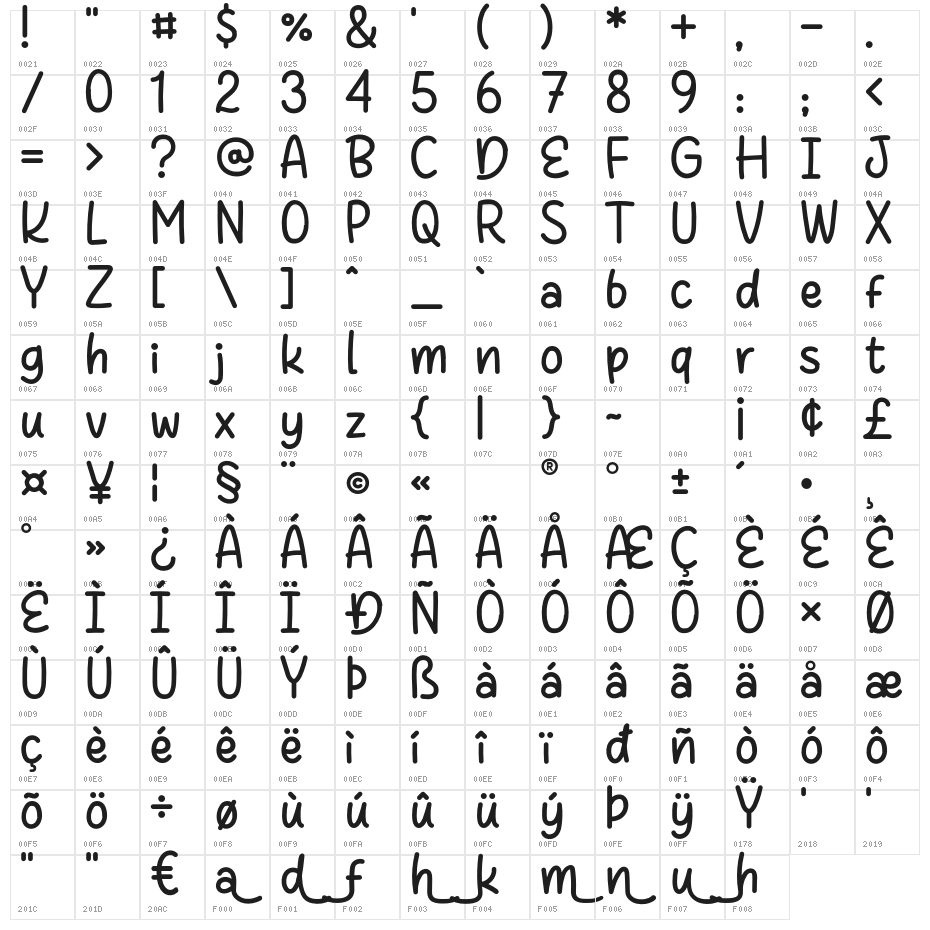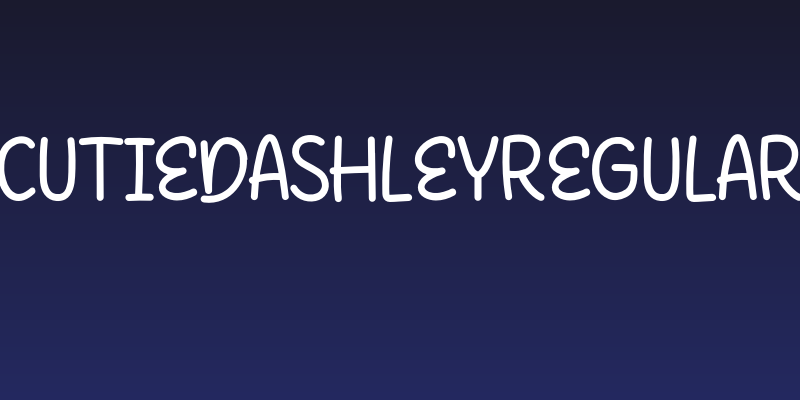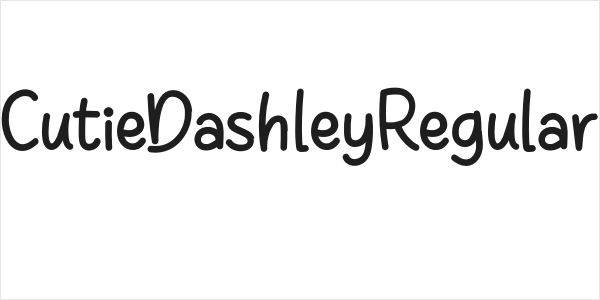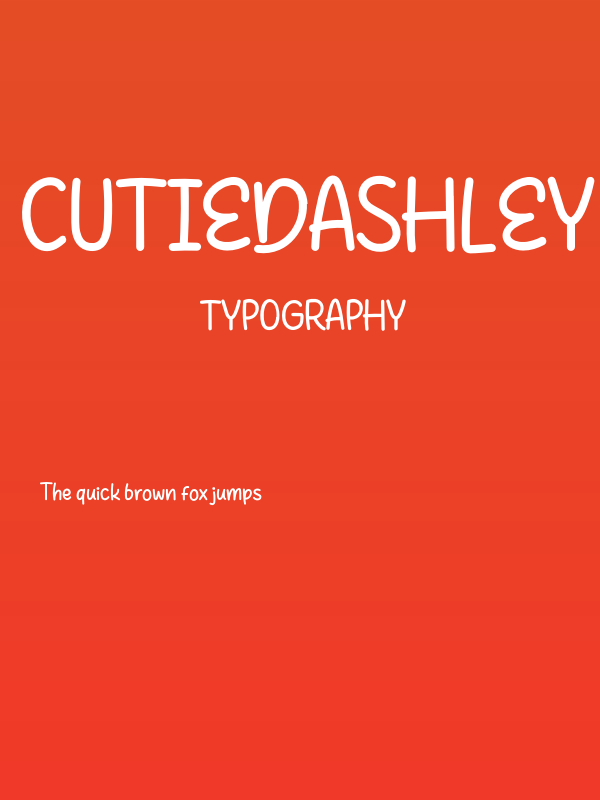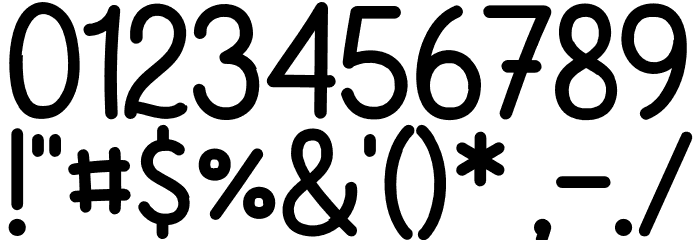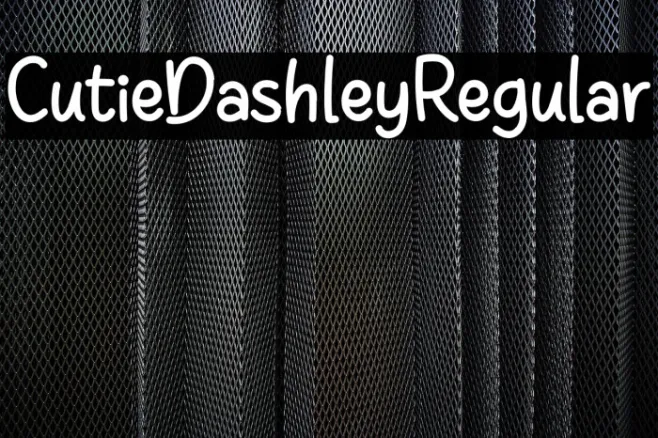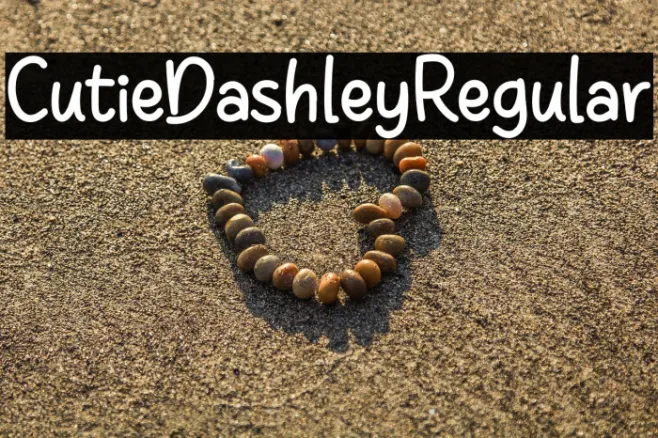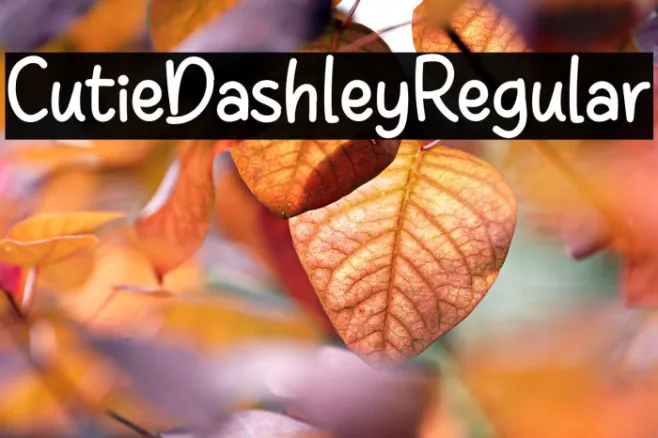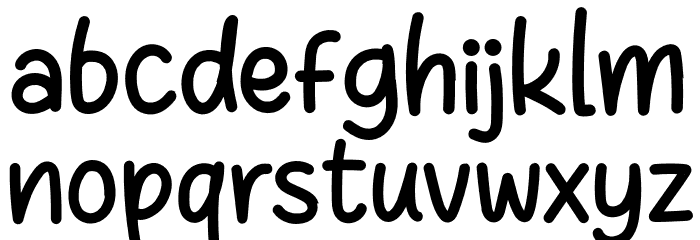
CutieDashleyRegular Font
CutieDashleyRegular Description
This font features a playful and friendly handwritten style, characterized by its rounded and smooth letterforms. The uppercase and lowercase letters maintain a consistent flow, giving a casual and approachable feel. The numerals are clear and easy to read, complementing the overall style. Special characters are well-integrated, maintaining the font's cohesive look. This font is perfect for projects that require a touch of whimsy and personality, such as children's books, greeting cards, or playful branding.
| Font Family | Cutie Dashley |
| Proposed Projects | Ideal for children's books, greeting cards, playful branding, and casual invitations. |